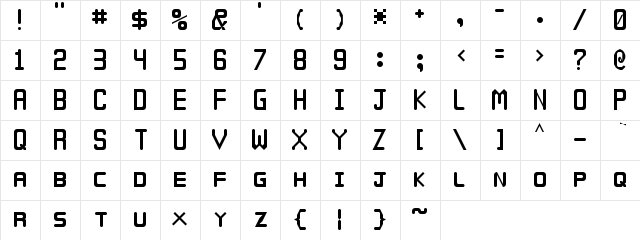
orator_gdw Regular
Design Context for orator_gdw Typeface
orator_gdw offers clean, dependable letterforms without strong stylistic allegiance, making it a practical choice for designers who need flexibility.
Pro Tip: Pair orator_gdw with a font of contrasting weight or personality to build a more expressive typographic hierarchy.